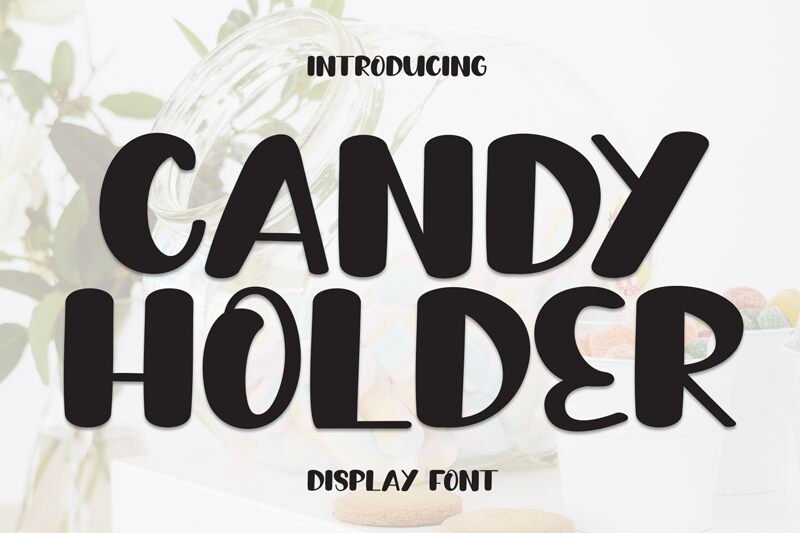
Candy Holder
Candy Holder font by Andi Moz is a free brush font that’s bold and centered around charisma. Its curved, geometric letters add a playful aesthetic with an eye-catching style. The lively design brings forth retro-inspired vibes along with nostalgic flair where the characters highlight individuality.
It is perfect for music albums, apparel items, packaging designs such as candy and cereal labels, business cards, coloring book covers or pages, cosmetics products titles (foundation and lipstick), posters featuring books and other publications or movie posters featuring features films even animations.